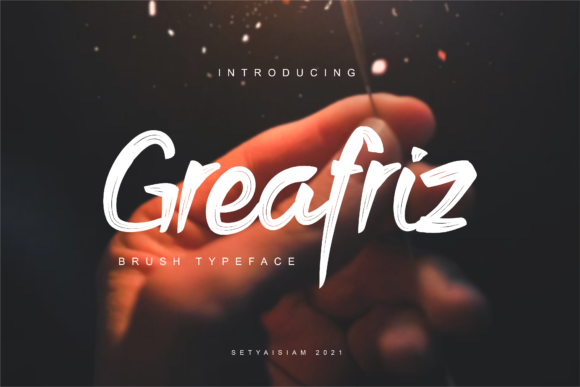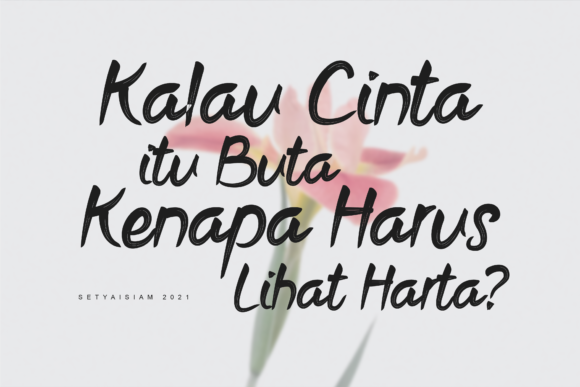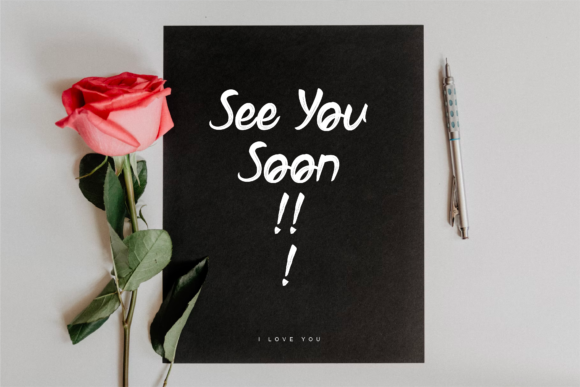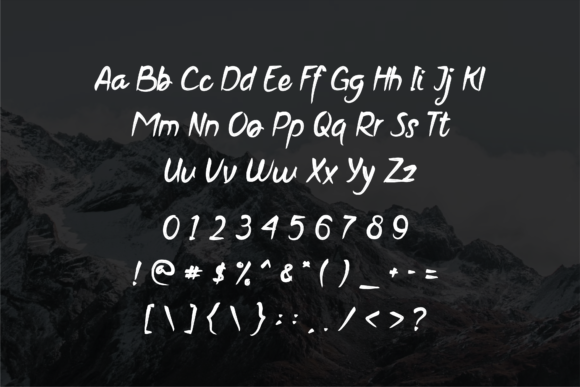
Greafriz Font
About Greafriz Font
Greafriz is a cool, brushed and casual handwritten font. Its informal style and neat vibe will make this font a go-to choice for each of the creations that require a relaxed touch.